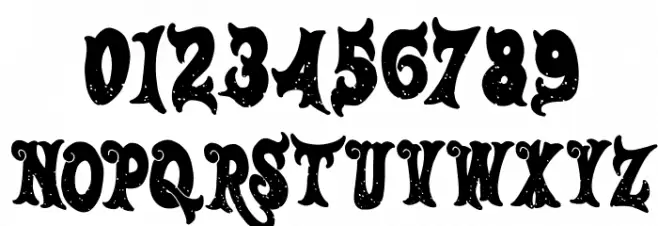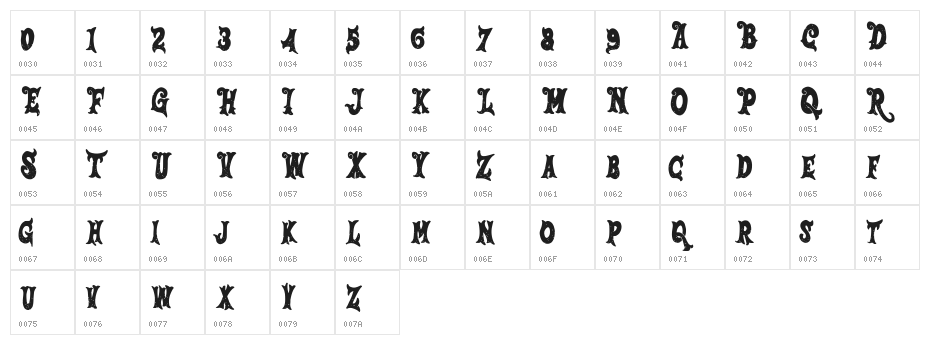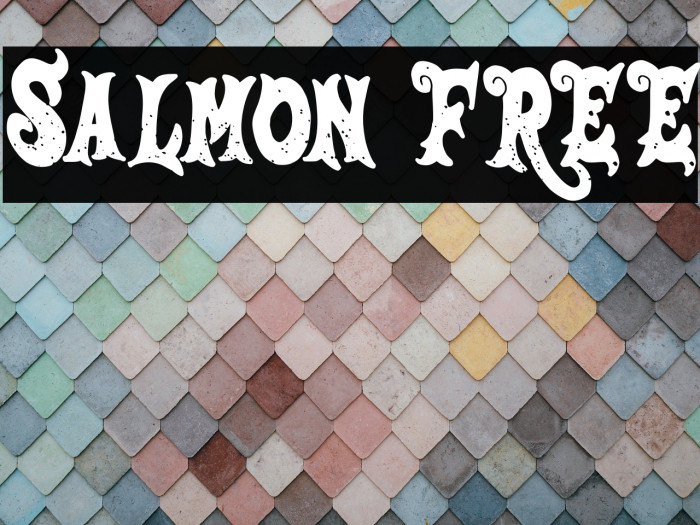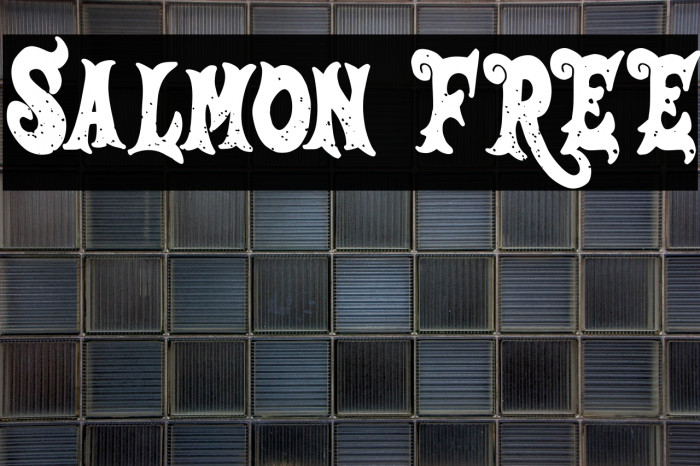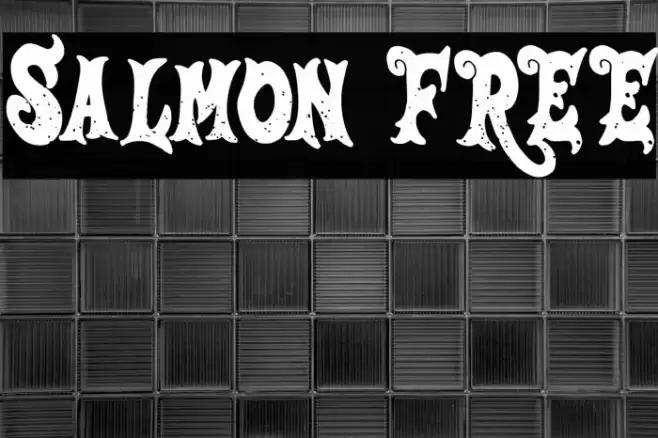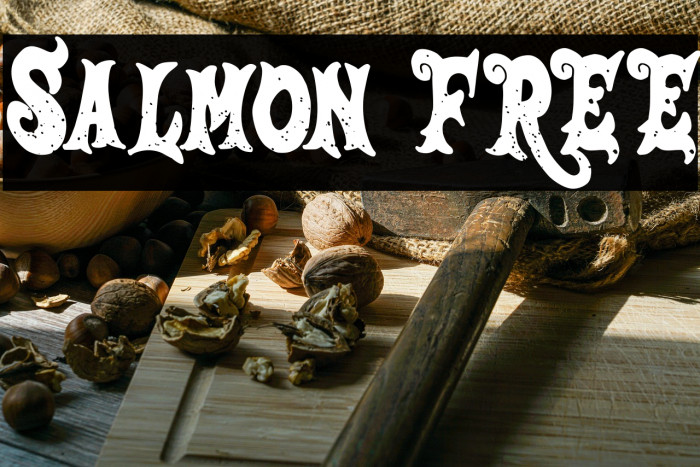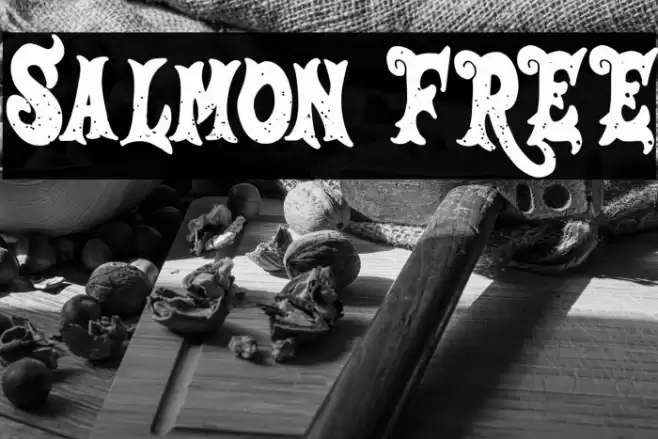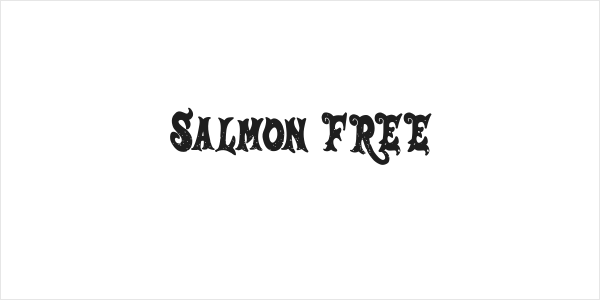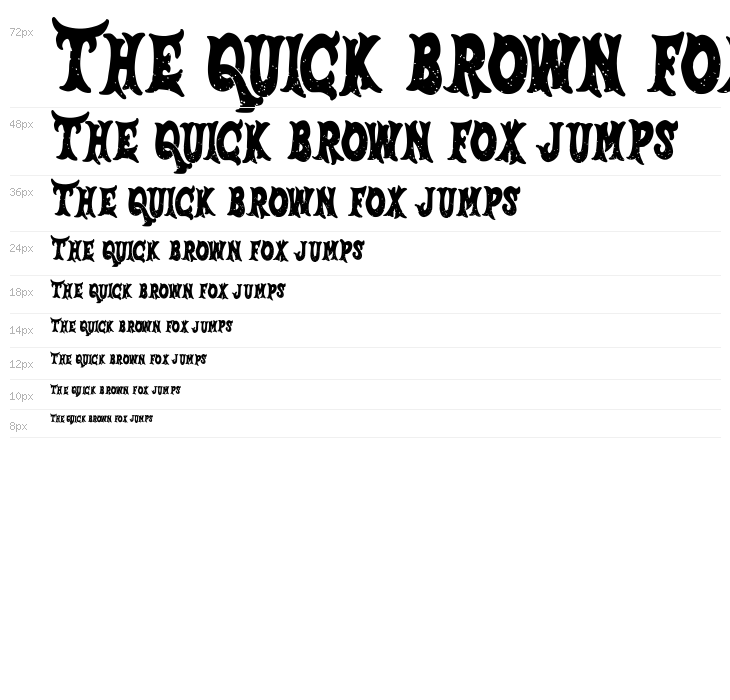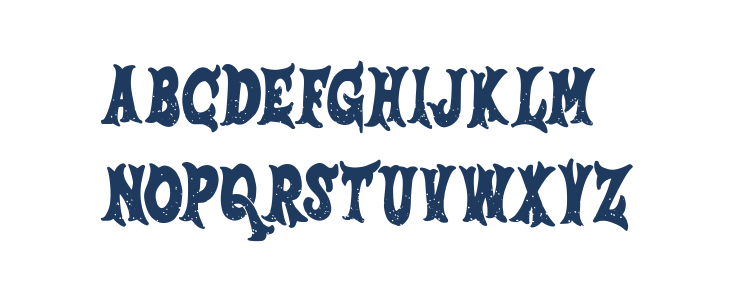
Salmon FREE Font
Salmon FREE Description
This font features a bold, decorative style with a distressed texture, giving it a vintage and rugged appearance. The characters are heavily stylized with exaggerated serifs and curves, creating a unique and eye-catching look. The texture within each letter adds a sense of depth and character, reminiscent of old western or circus posters. The font maintains a consistent weight throughout, with wide, expansive letterforms that command attention. Its playful yet bold design makes it suitable for projects that require a strong visual impact.
| Proposed Projects | Ideal for posters, logos, branding, and any design needing a vintage or western theme. |